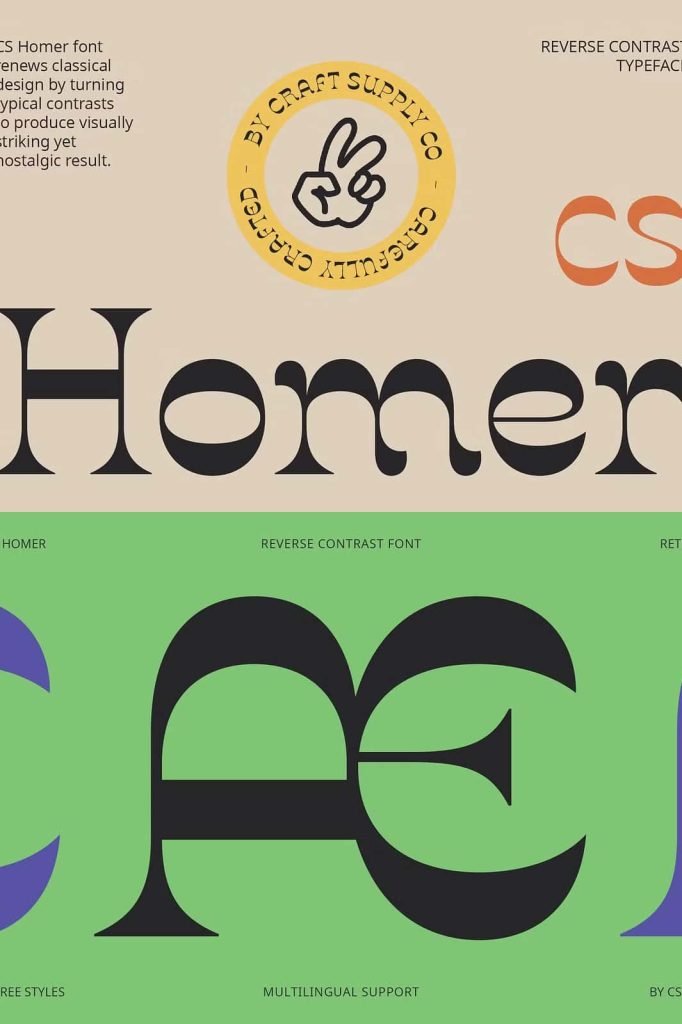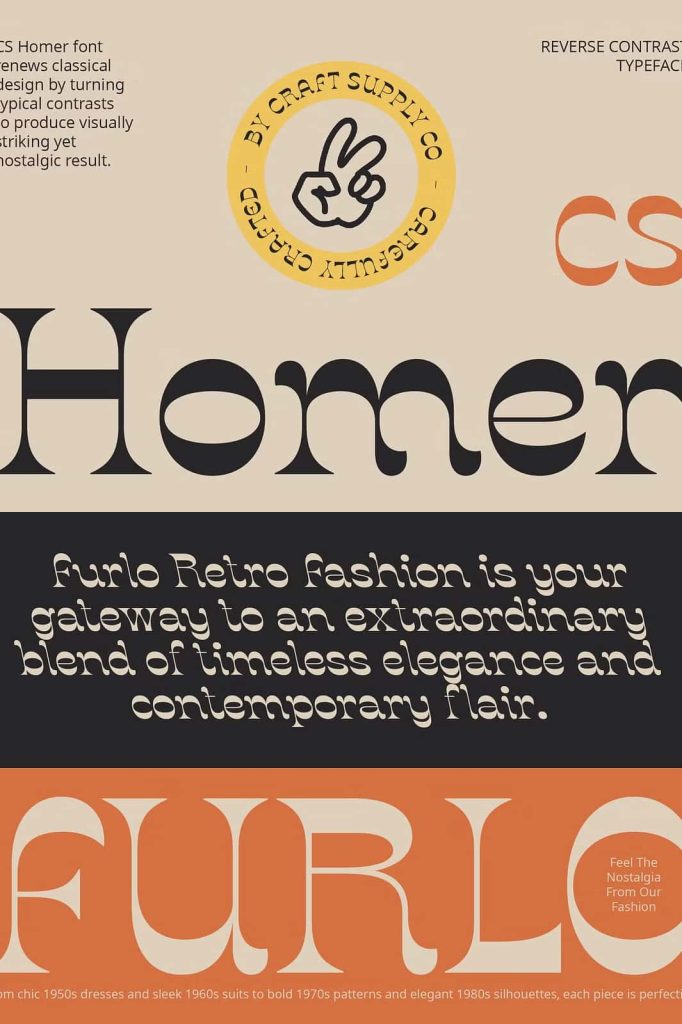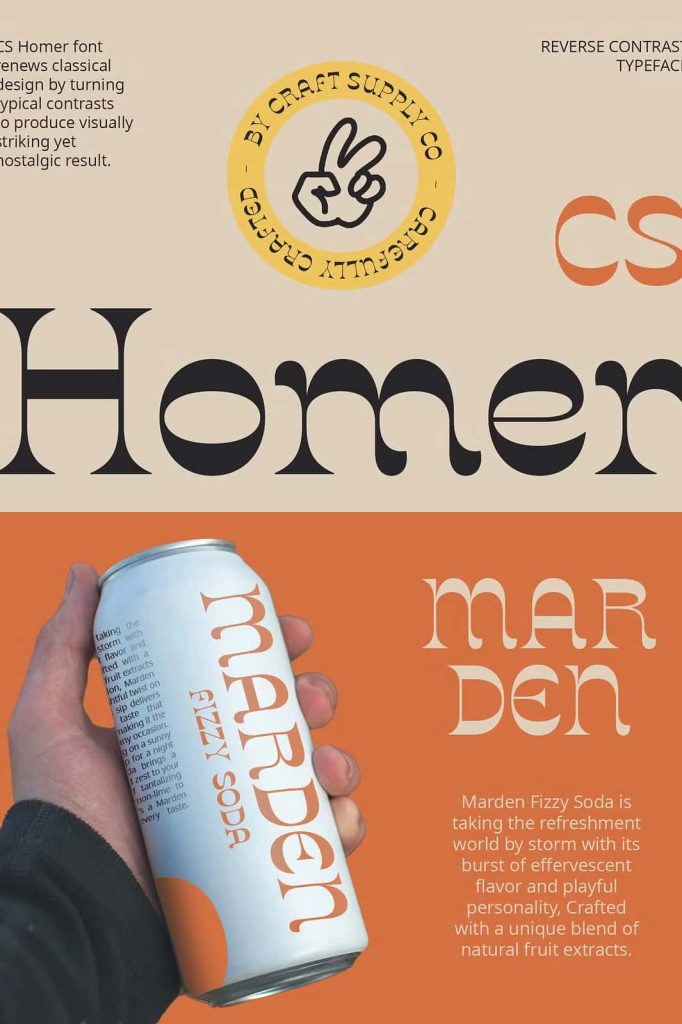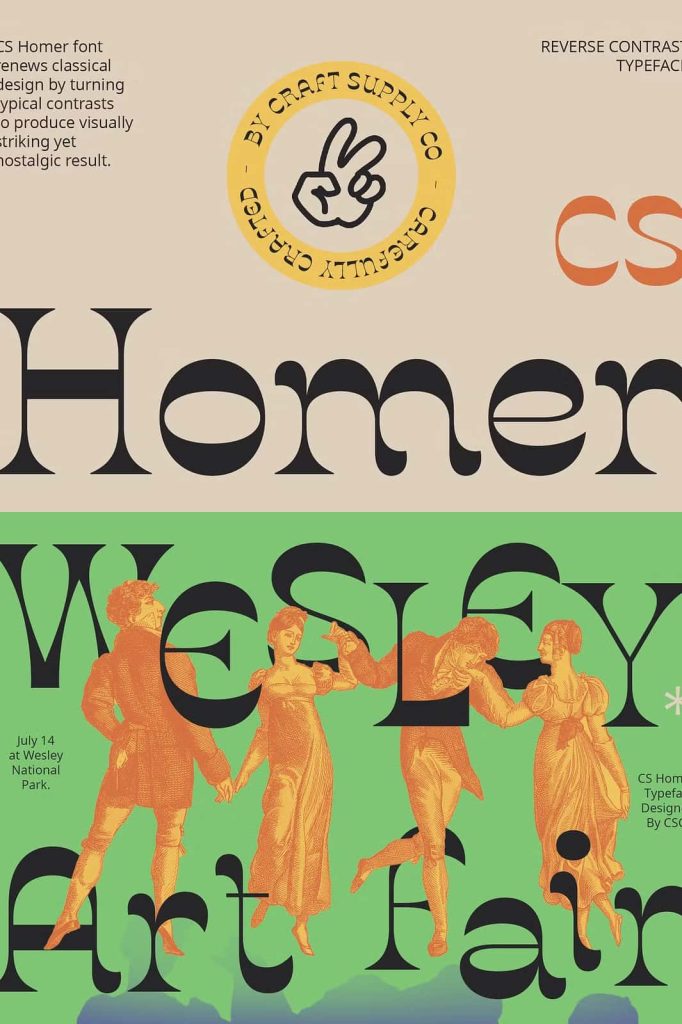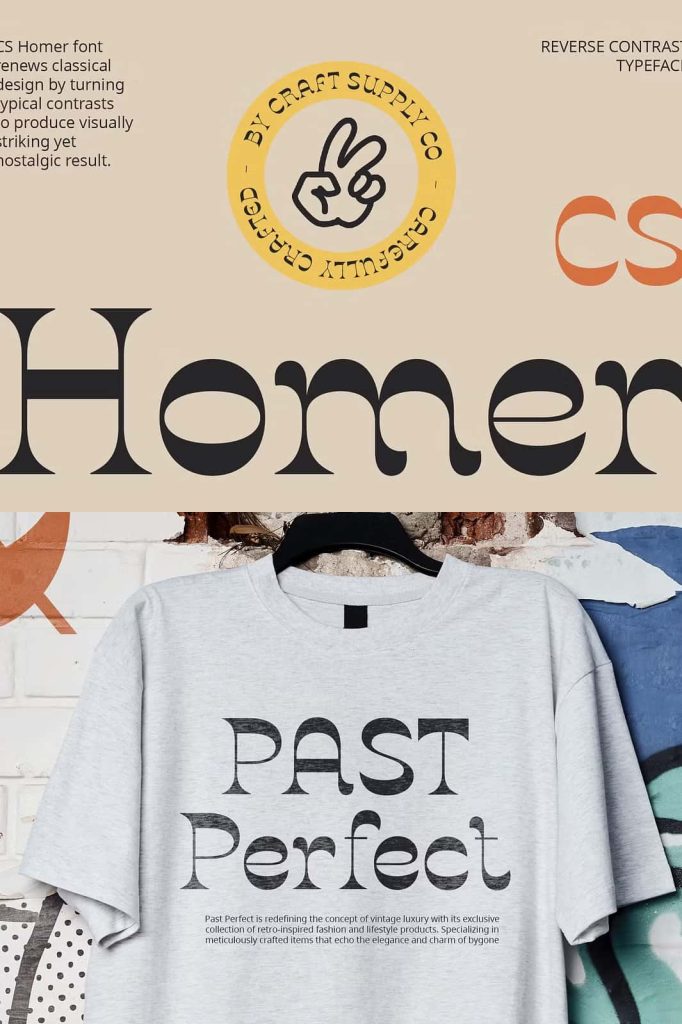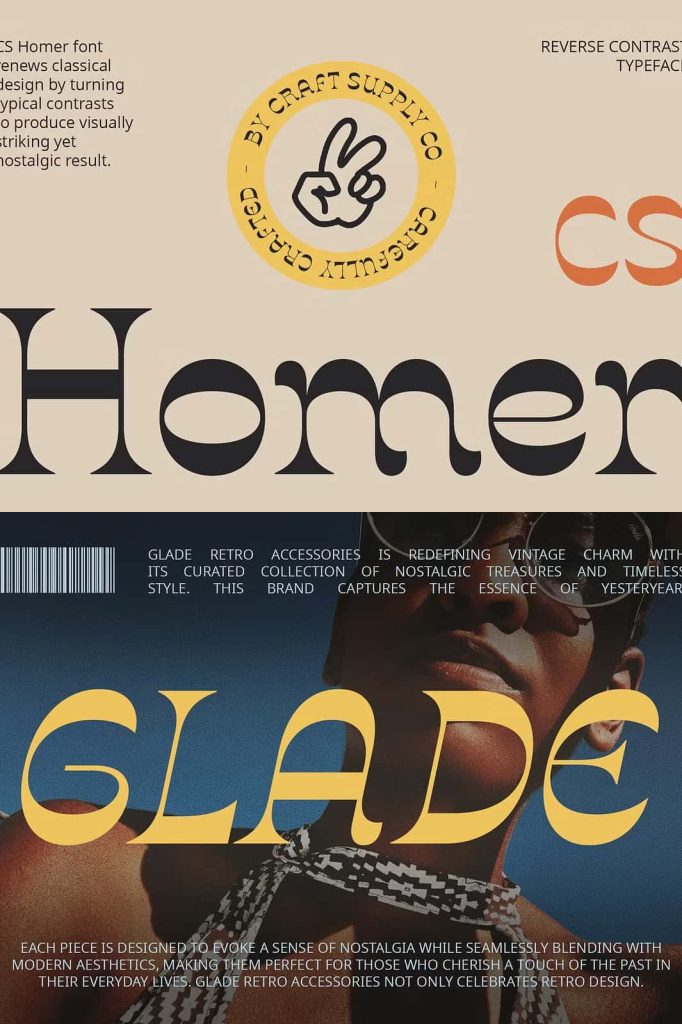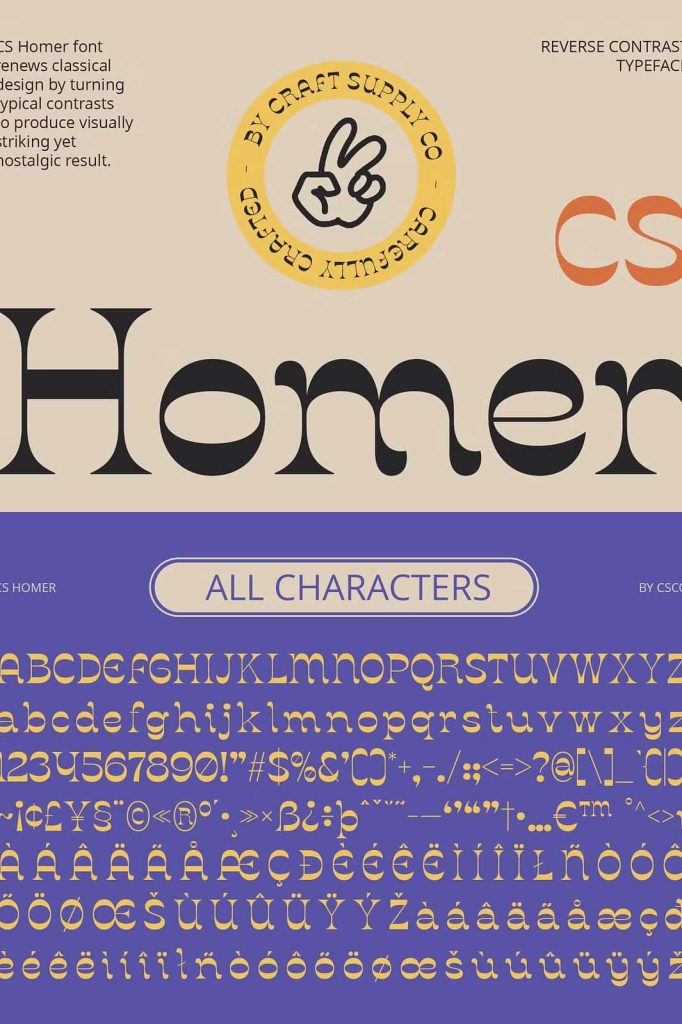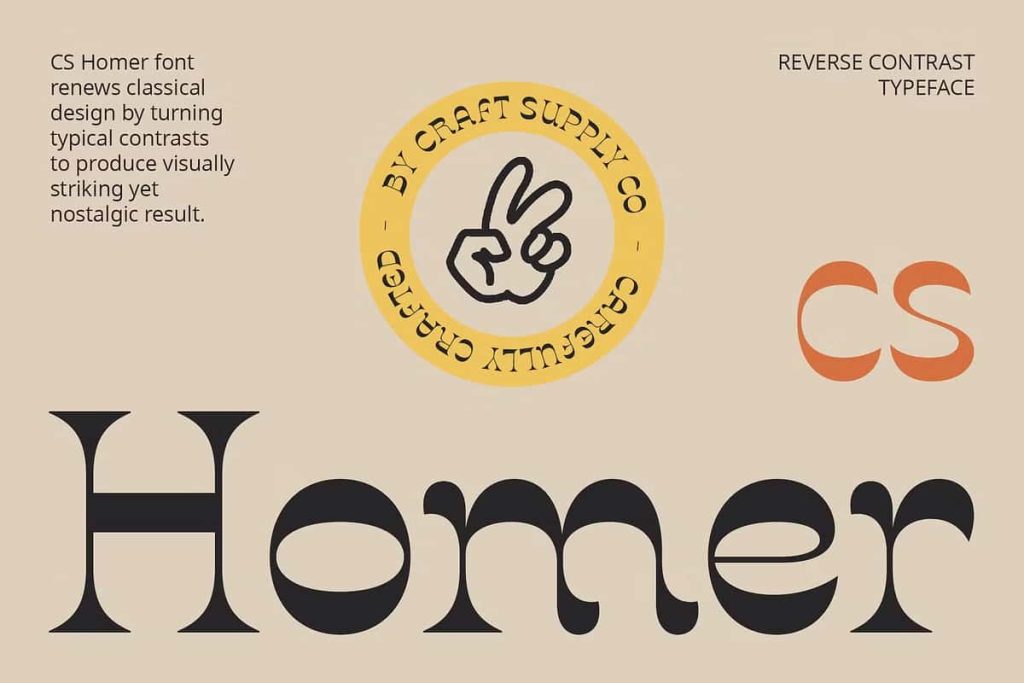
CS Homer – Reverse Contrast FontleastedAugust 3, 2025Fonts ntriguing and Unique Style CS Homer is a display cs font that stands out with its reverse contrast design Download